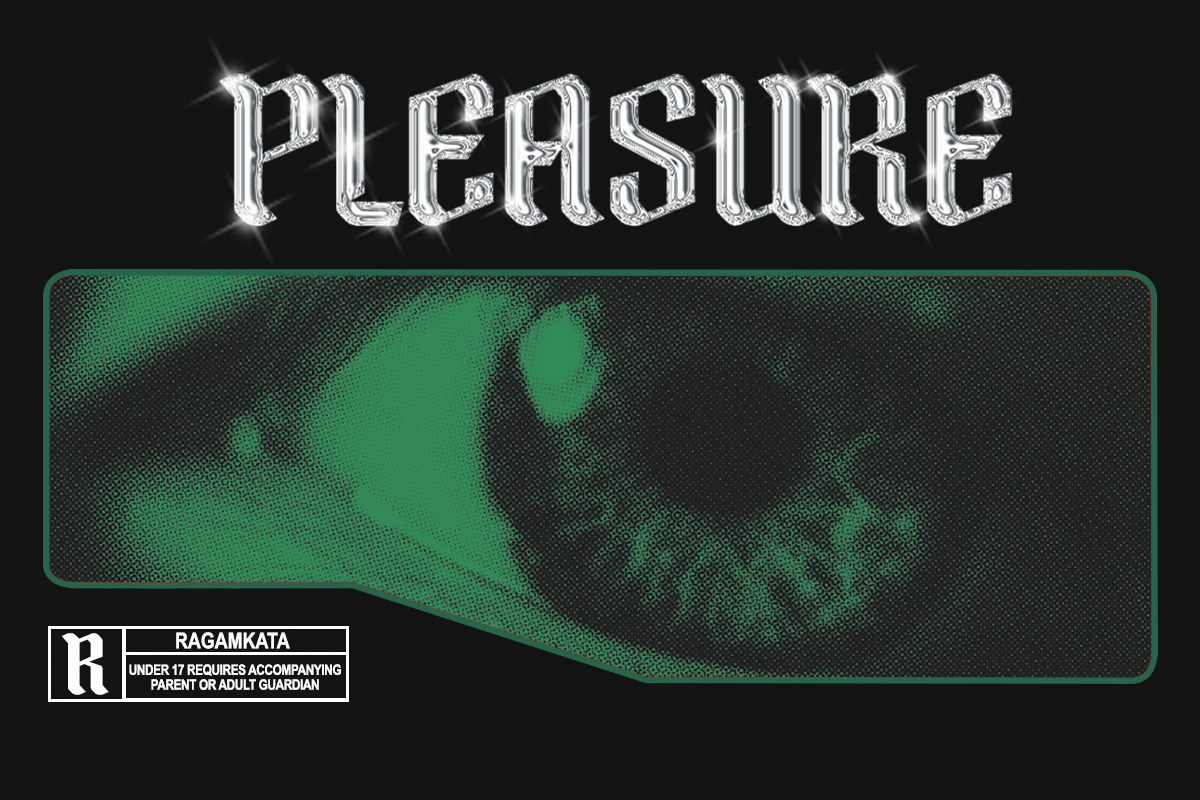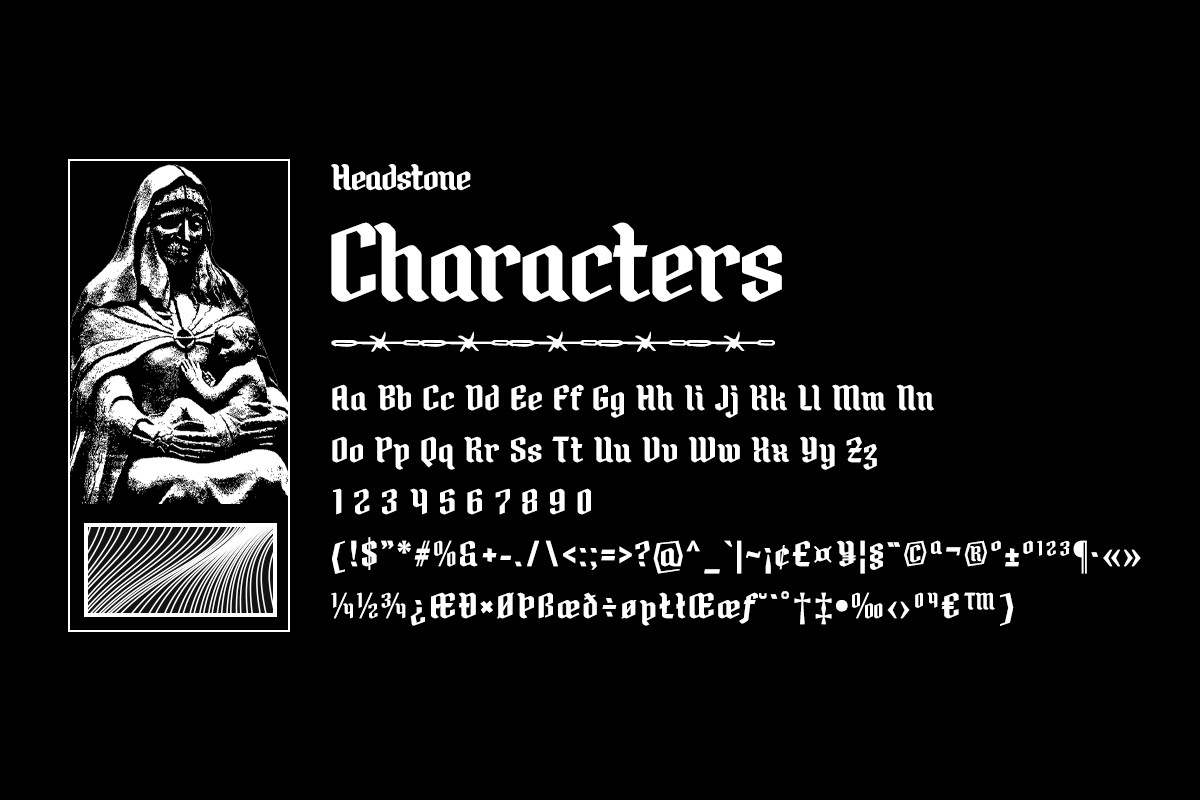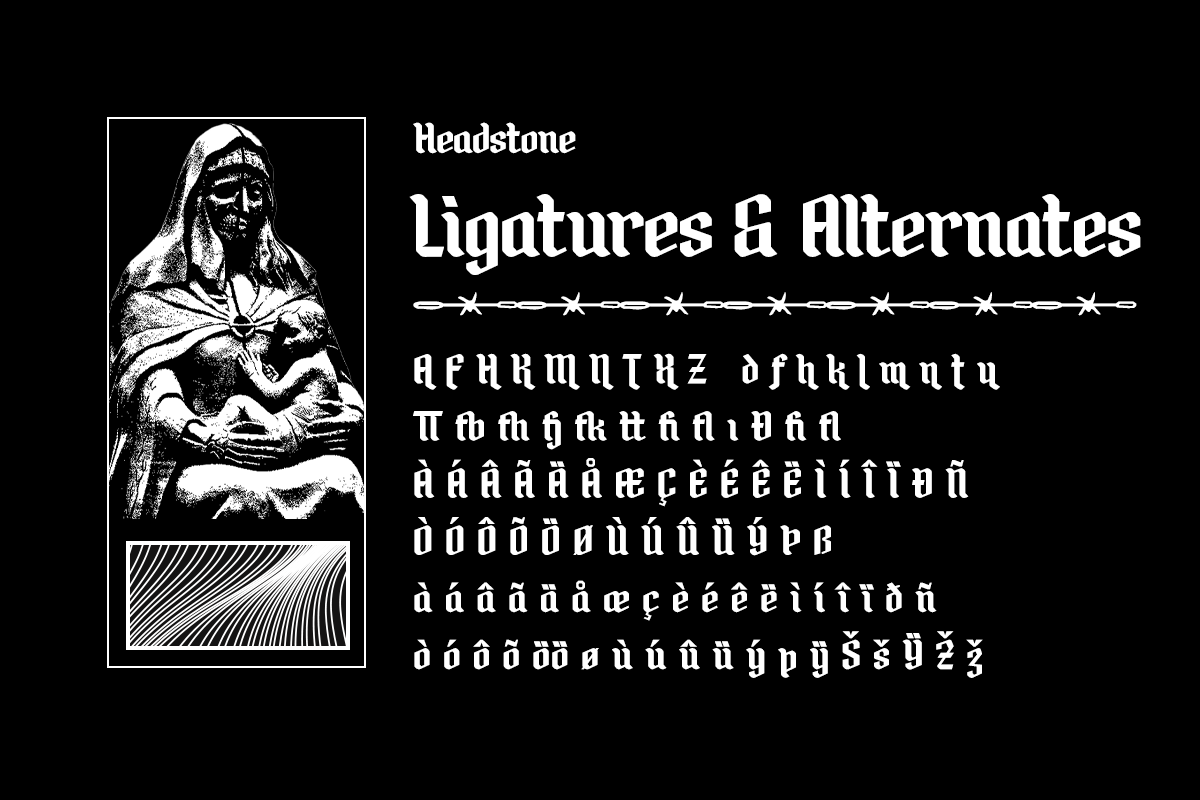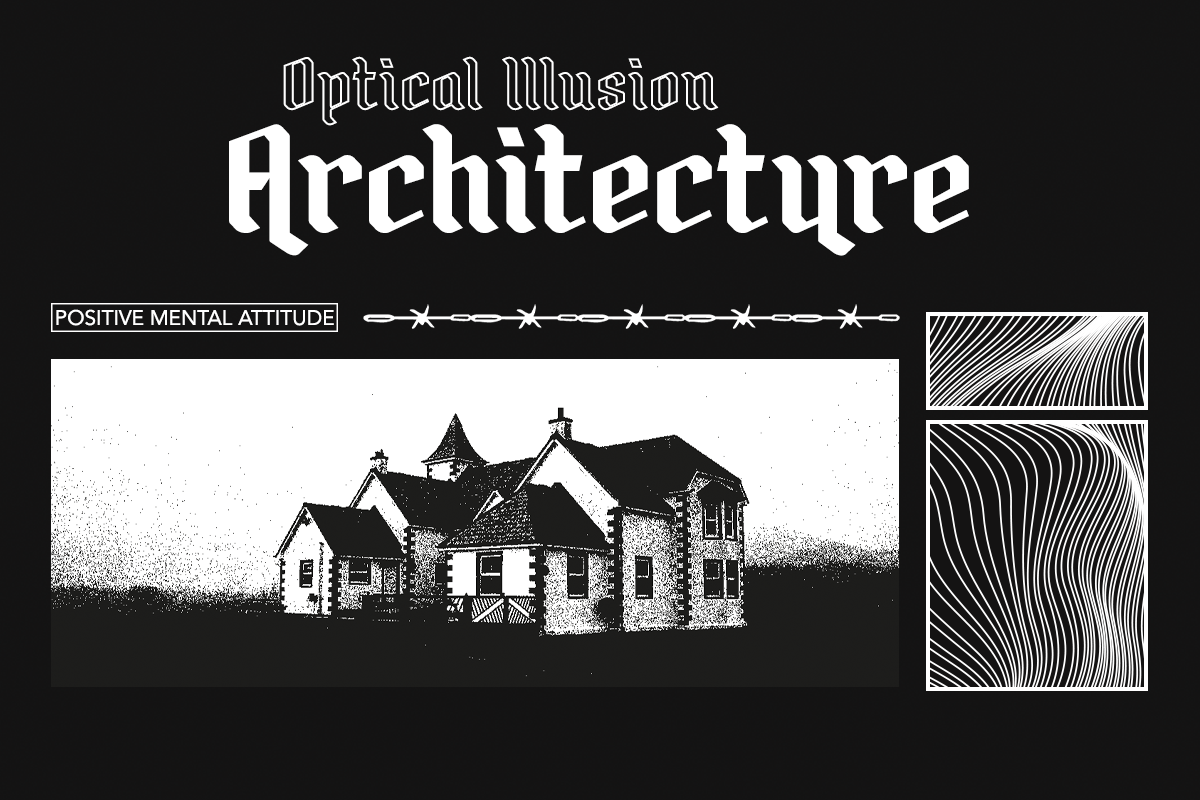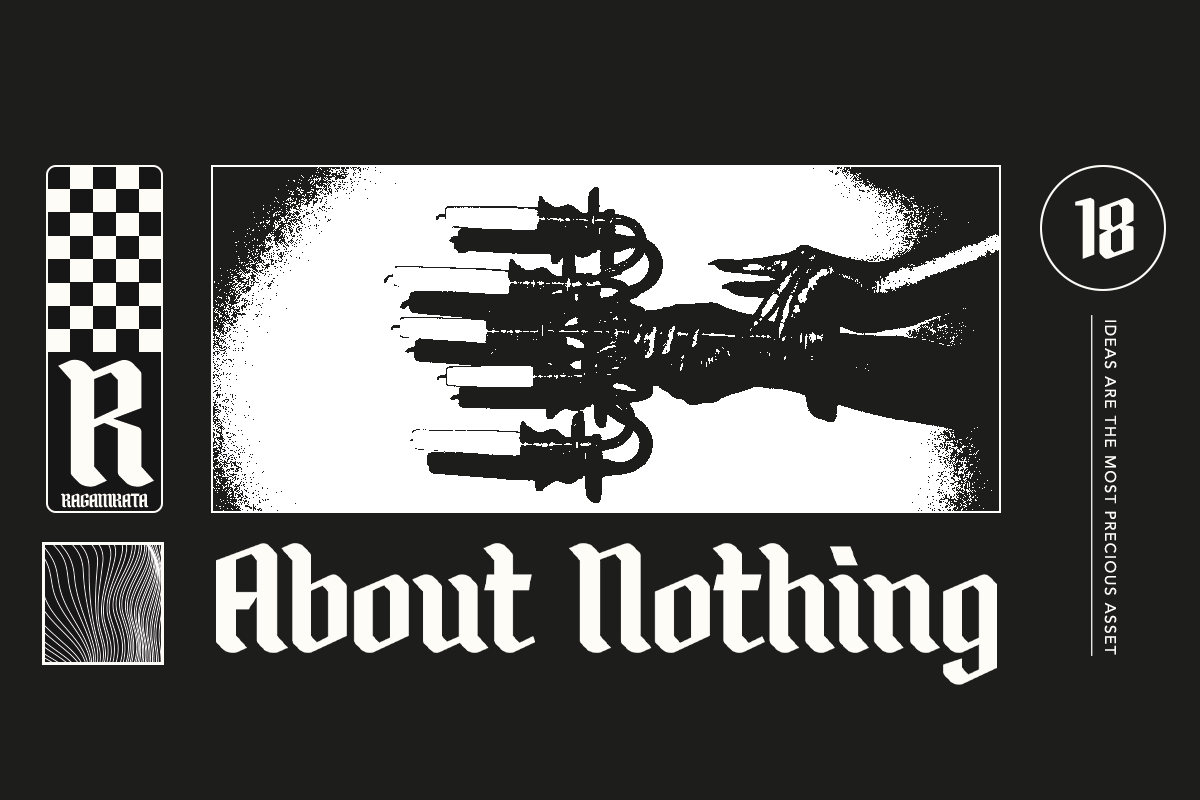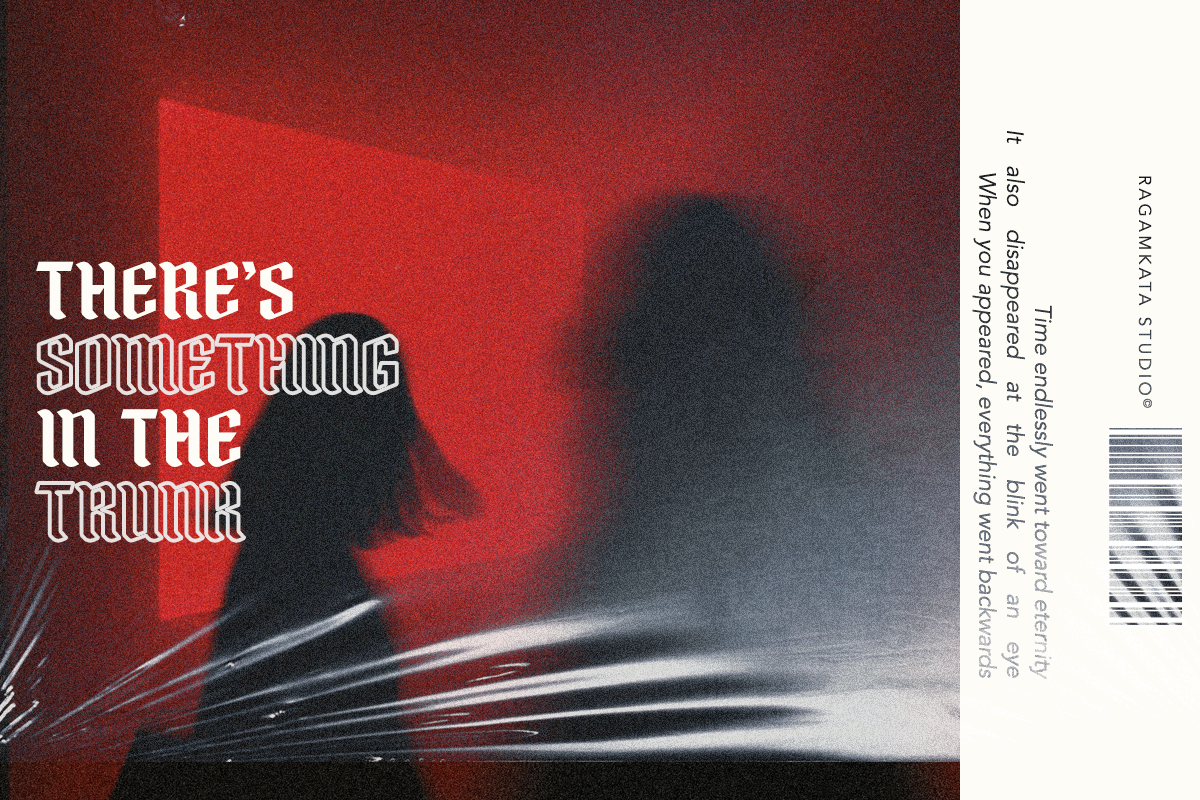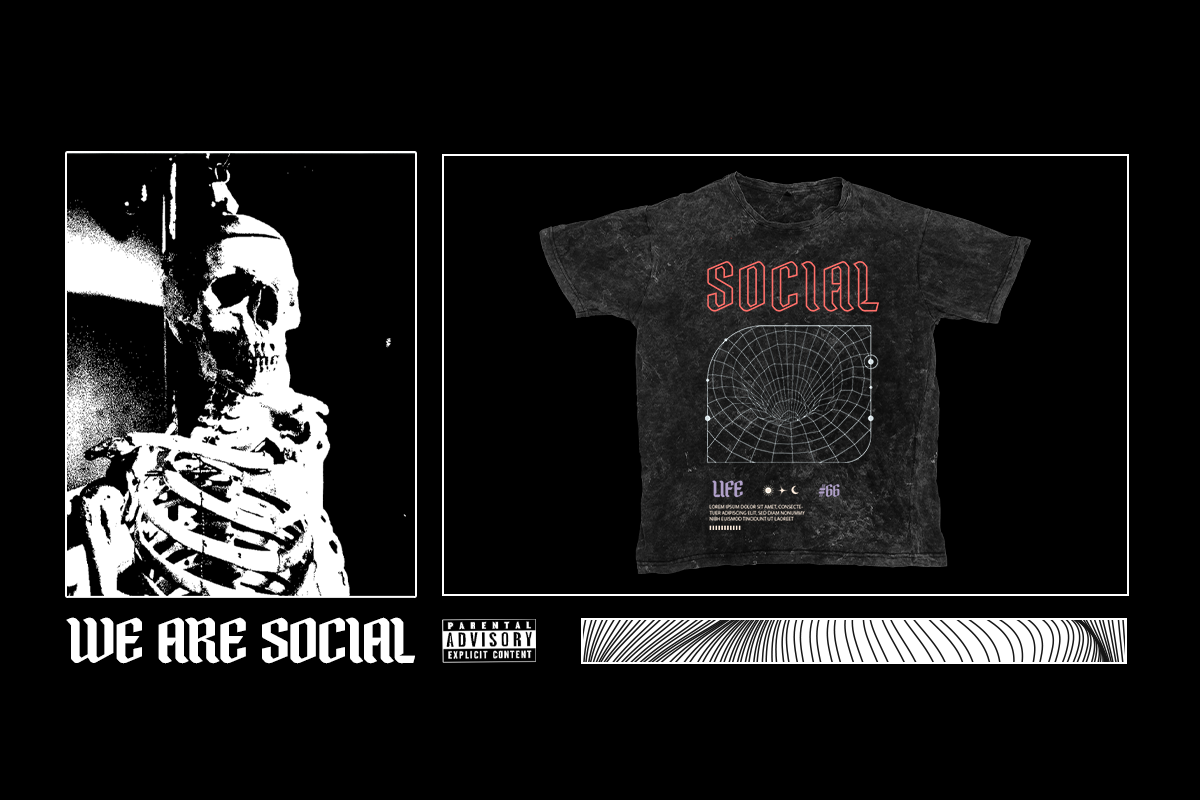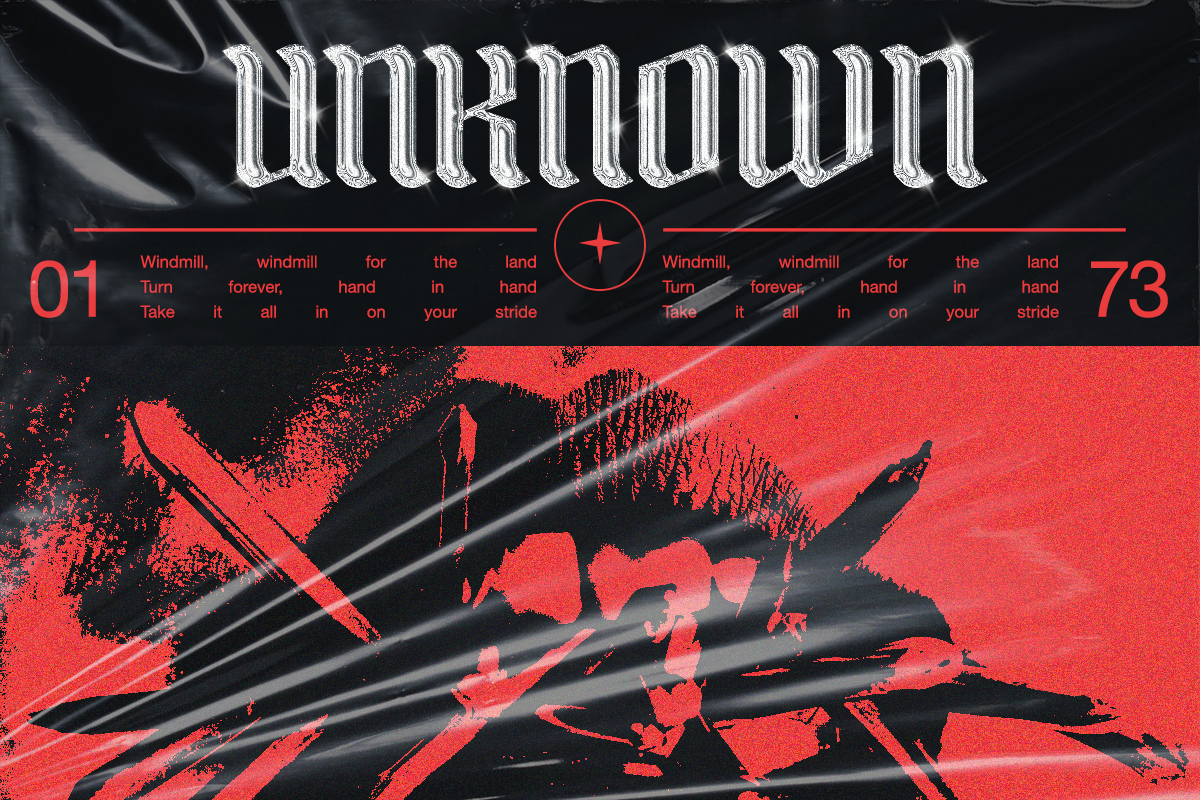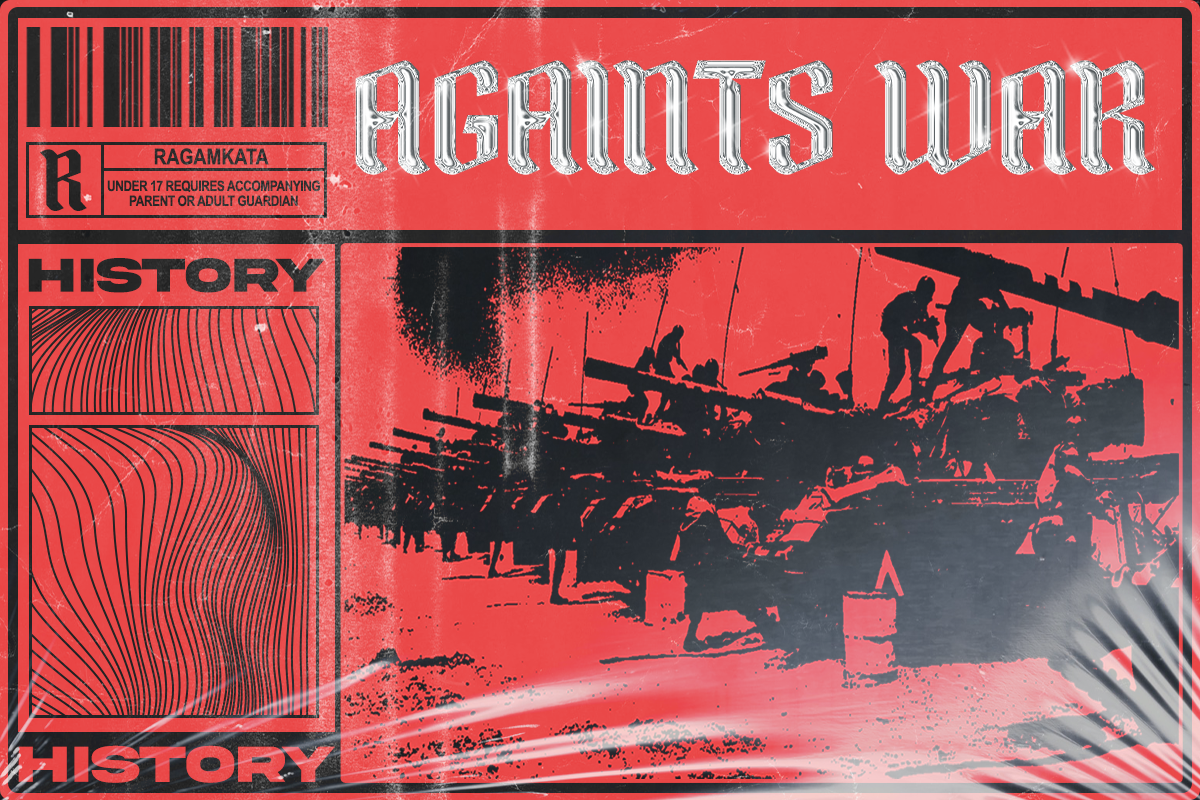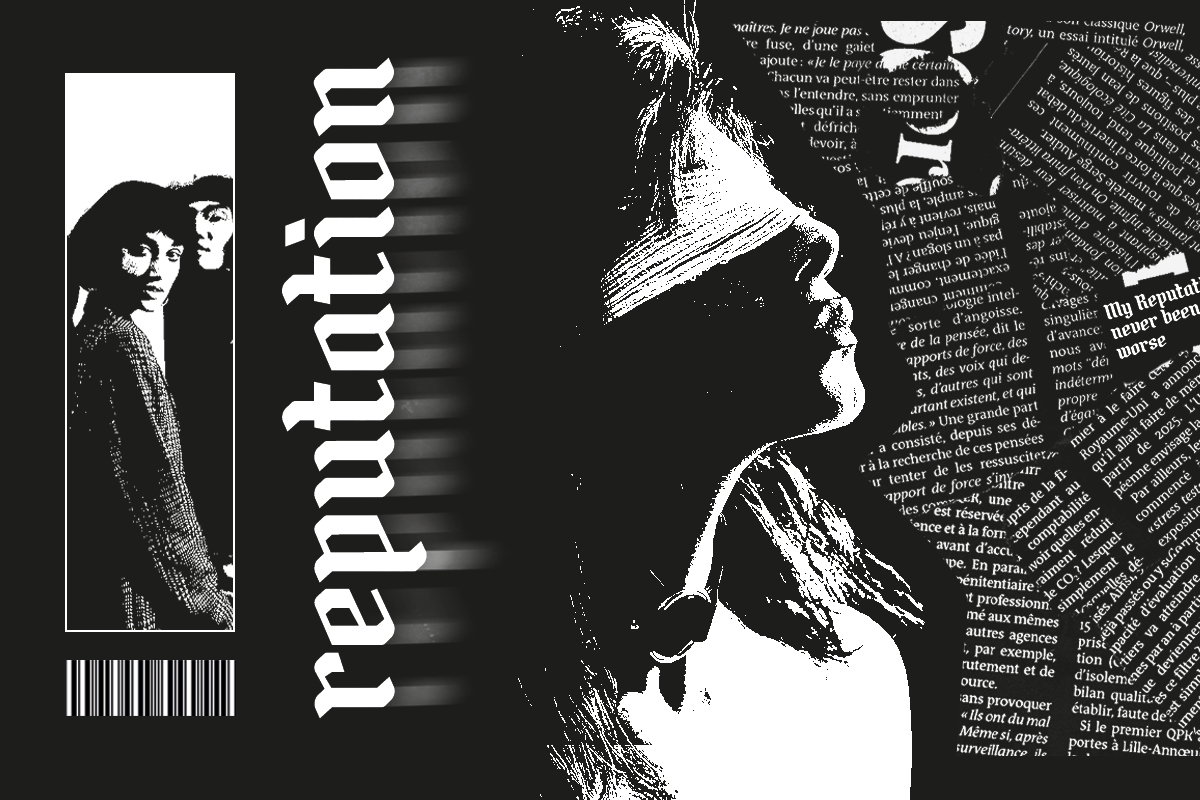
Headstone - Classic Blackletter Type
Headstone a classic blackletter typeface combining a modern and classic typography style, with a touch of retro style. A very suitable font to make your project look elegant with it’s rounded and bold shape. Headstone is very ideal for heading, flyers, posters, product packaging, book cover, printed quotes and many more. Enhance your work with Headstone to make your work more well-known!